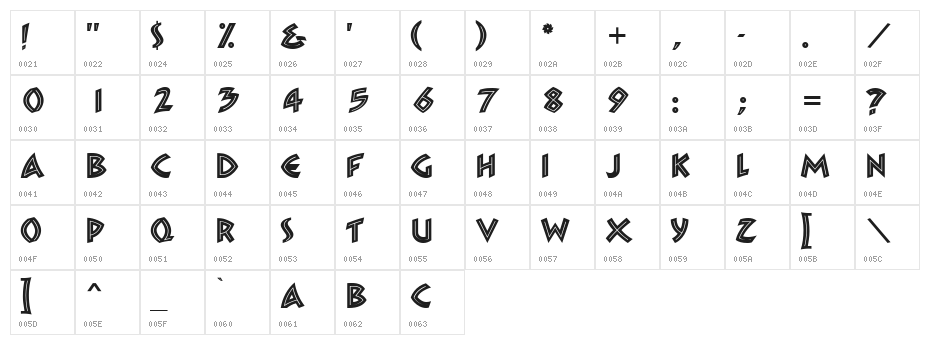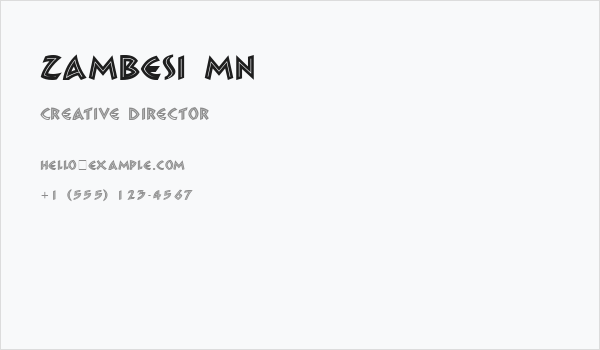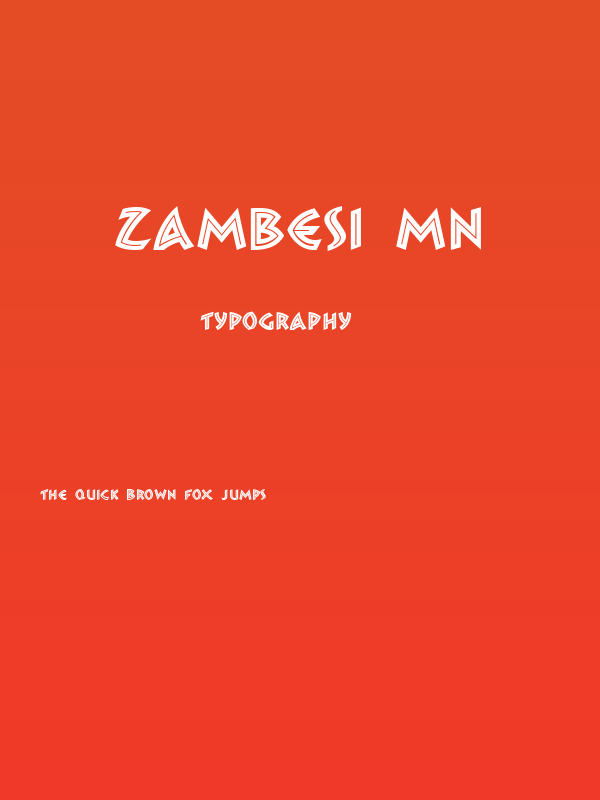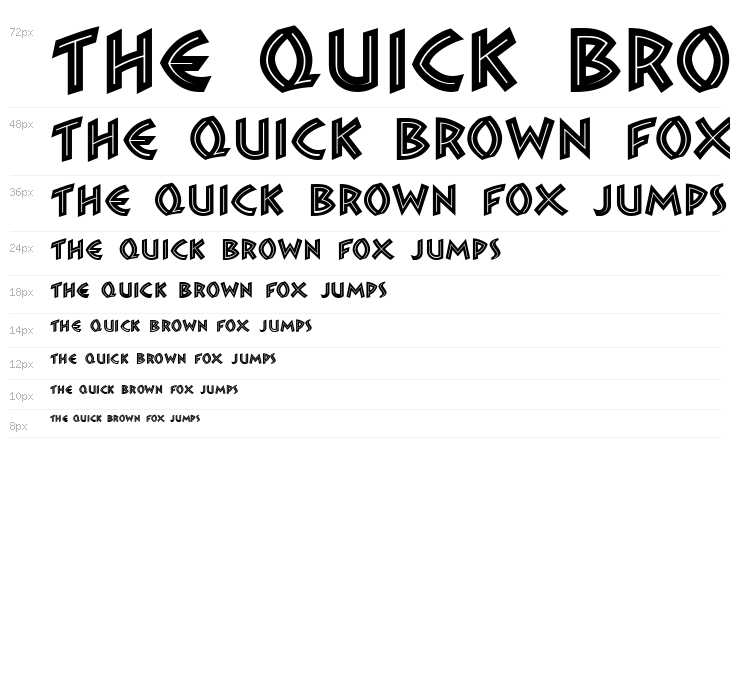
Zambesi MN Font
Zambesi MN Description
This font features a bold and dynamic design with sharp, angular edges and a strong geometric influence. The uppercase and lowercase letters maintain a consistent style, characterized by thick strokes and pointed serifs that give a sense of movement and energy. The numerals and special characters follow the same aesthetic, ensuring uniformity across all glyphs. The font's unique style makes it stand out, with a modern twist on traditional letterforms that adds a sense of boldness and creativity.
Proposed ProjectsIdeal for use in branding, posters, and headlines where a strong, impactful presence is desired.